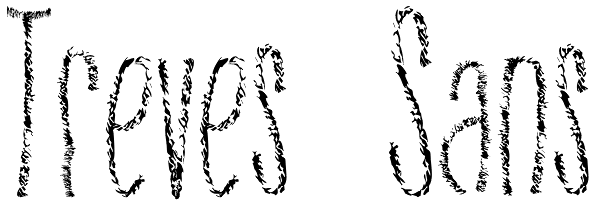
Treves Sans
Treves Sans is a scratchy, messy, hand written display font. It has the look of charcoal or a brass rubbing, reversed in lighter tones it looks like chalk. It reminds me of Edward Gorey's or Eddie Campbell's styles of sketching. It has about 200...